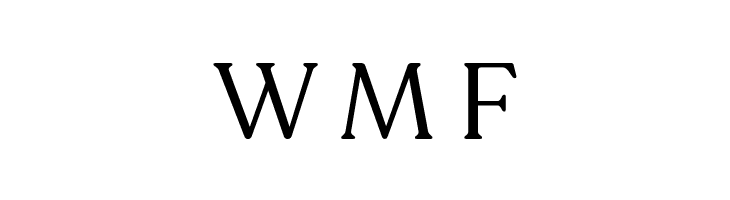
A playful font designed to resemble interconnected puzzle pieces.
A futuristic stencil font with geometric lines and industrial style.
A modern serif font with smooth curves and balanced proportions.
A bold, geometric font with sharp angles and a modern, industrial style.
A bold, geometric font with a modern, industrial aesthetic.
A decorative serif font with sharp serifs and elegant curves, blending traditional and modern styles.
A clean, modern sans-serif font with excellent readability and versatility.
A bold, modern sans-serif font with uniform strokes and a strong presence.
A bold, modern sans-serif font with clean lines and strong readability.
A bold, modern sans-serif font with a slightly condensed style.
A bold, geometric font with a strong, uniform appearance.
A modern, extra-bold sans-serif typeface with clean lines and strong visibility.
A clean, modern sans-serif font with consistent stroke width and high legibility.
A modern, clean sans-serif font with balanced proportions and excellent readability.
A dynamic and fluid handwritten script with elegant, flowing connections and varied stroke weights.
A bold, distressed font with a vintage rubber stamp appearance.
A playful and whimsical font with curly, flowing letterforms.
A modern, geometric font with sharp angles and smooth curves.
A robust slab serif font with balanced proportions and strong serifs.